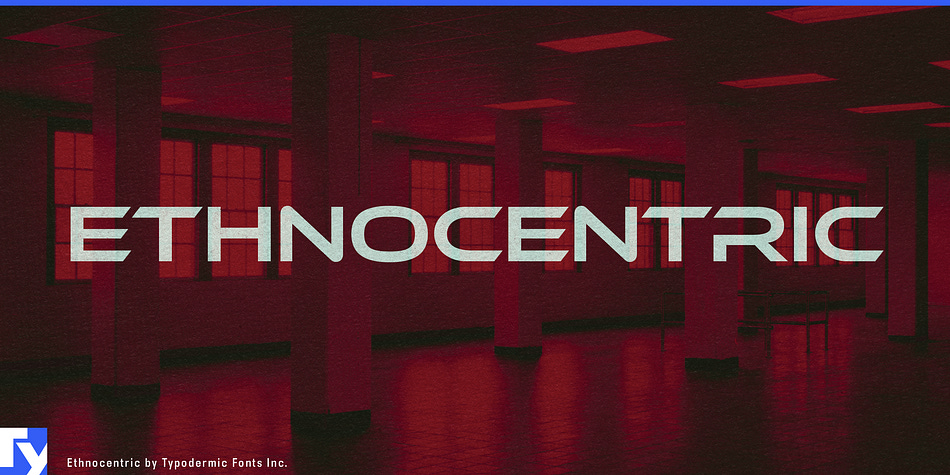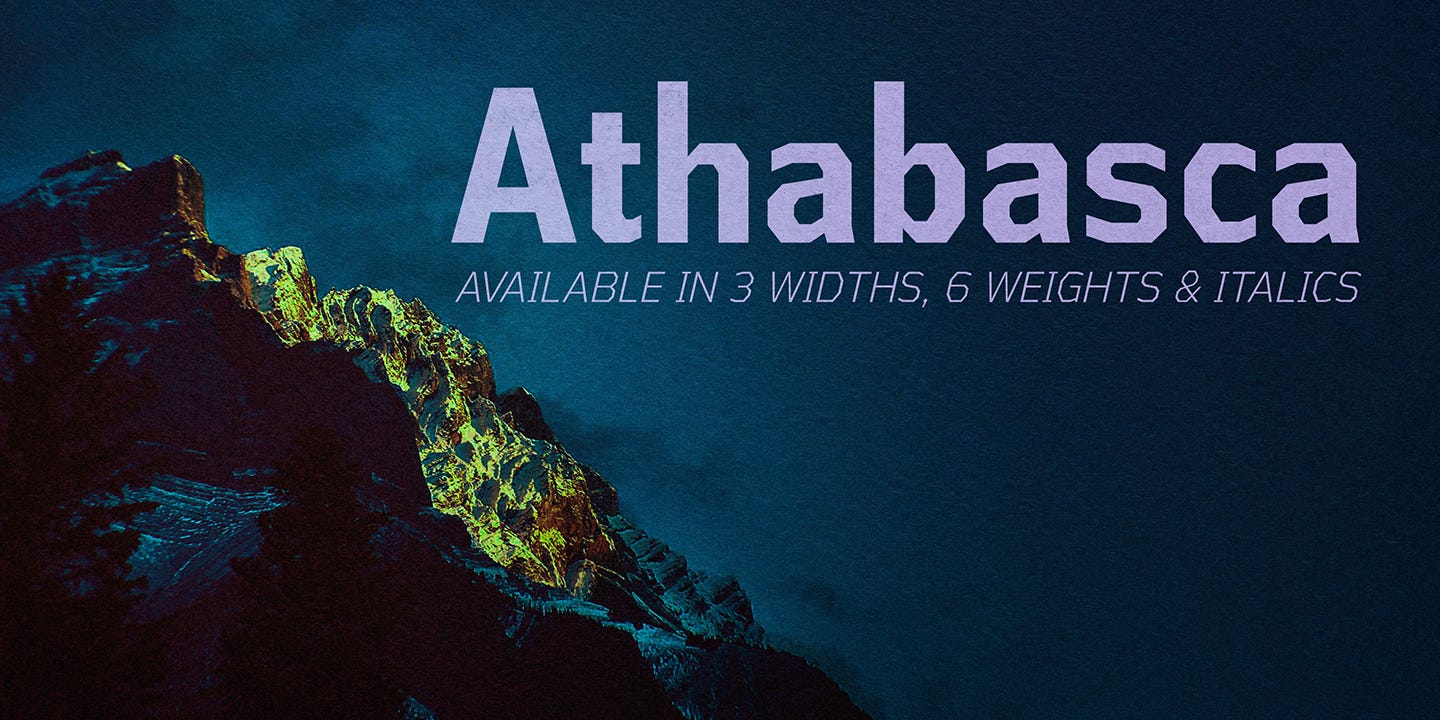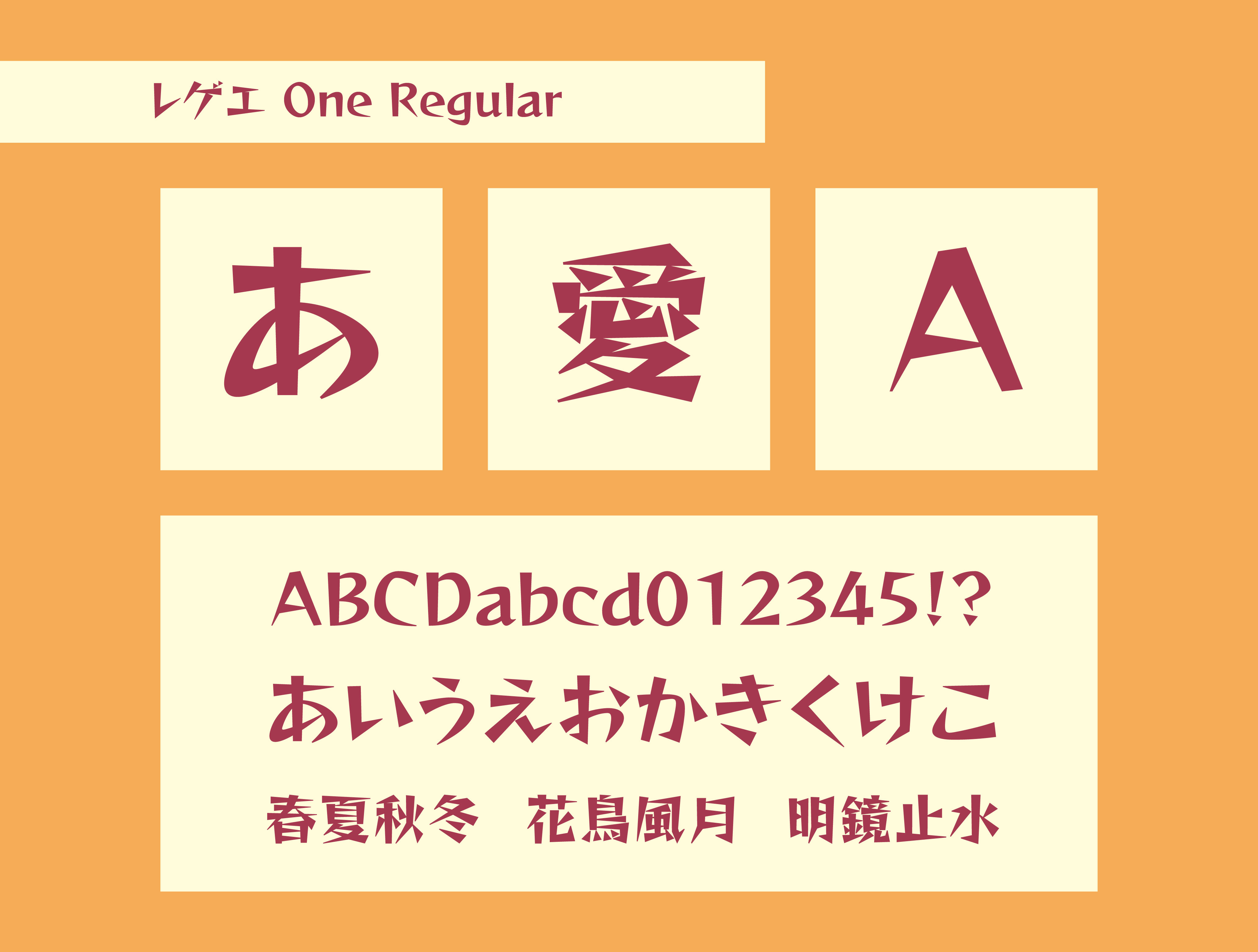
One of the most common questions I’m asked is, “Of all the typefaces you admired and purchased, what’s your favorite?” It’s hard to pick one, so I usually base my answer on the fonts I use most. These are the fonts that I’m most happy with, and I find them to be most useful in webcomics, illustration, graphic design, and logo design work, though I’m not a type designer myself. This was originally written on Medium, but why not migrate it here?
Here are my picks for these fonts, which will cover more pay fonts (Y2K and comic/manga fonts) than the free ones.
20. Ethnocentric
Designer, Country: Ray Larabie of Typodermic Fonts, Japan1
This ultramodern, accelerated display/headline typeface has sharp diagonal cuts that look good on fictional logos of vehicles, skateboards, computers, or clothing companies.
19. Kenyan Coffee
Designer, Country: Ray Larabie of Typodermic Fonts, Japan
When you need (fictional) logos of cars or Mustang-inspired dashboards, look no further for Kenyan Coffee. The font is seen in the American business reality TV series Shark Tank (though I don’t watch it). Shaz Shanghari (formerly Shanghai’d)2 formerly used this font on their Twitch streams.
18. Reggae One
Designer, Country: Fontworks, Japan
This font is seen in many video games, such as The Legend of Zelda: The Wind Waker3, among other video games that were released in Japan. Initially available to Japanese companies and mangaka living in Japan, Fontworks later released the font (along with seven Fontworks fonts) for free for anyone to use. This is useful for having the characters’ names in Japanese or having the characters say in Japanese.
17. Shantell Sans
Designers, Countries: Stephen Nixon of ArrowType, USA; Anya Danilova, Netherlands (born in Russia, Cyrillic design); Shantell Martin, Great Britain (original concept, though she relocated to NYC, USA)
Based on the handwriting of British visual artist and philosopher Shantell Martin, she is famous for using words in her artwork in the Oculus at the World Trade Center in NYC, and for her music and art collaboration with Kendrick Lamar at Art Basel in Miami. This variable font (variable fonts do not work in Clip Studio Paint, but they work in Adobe Illustrator and Photoshop) allows you to make your letters jump by adjusting the “bounce” and also adjusting “informality” so that the font looks more like natural handwriting. Useful for certain characters’ handwriting.
16. Vipnagorgialla
Designer, Country: Ray Larabie of Typodermic Fonts, Japan
This wide, square headliner gives me Sonic Adventure 2 vibes (I had that game on the Sega Dreamcast — and the updated SA2 Battle on GameCube includes updated graphics), and it comes in handy for simulating car logos, computer logos, or digital dashboards on motorcycles and vehicles. The font will also be used for the fictional Technopreme clothing company for the upcoming Shibuya Brawlers (née Radical Flannel).
15. Athabasca
Designer, Country: Ray Larabie of Typodermic Fonts, Japan
You’re thinking, “Why are there sans-serif fonts on this list?” Well, it’s damn handy. I love angular (and humanist) sans-serif fonts. I use this for the characters’ smartphone, tablet, and computer interfaces.
14. NK57 Monospace
Designer, Country: Ray Larabie of Typodermic Fonts, Japan
Ray Larabie is Canadian, as he moved to Nagoya in 2008. The country of origin for Typodermic Fonts will still read Japan.
Shaz uses they/them pronouns as they are non-binary.
Japanese: ゼルダの伝説 風のタクト, Hepburn: Zeruda no Densetsu: Kaze no Takuto, lit. “The Legend of Zelda: Baton of Winds”
Previously known as Yakuza.